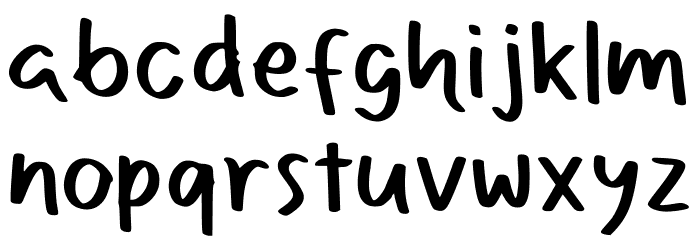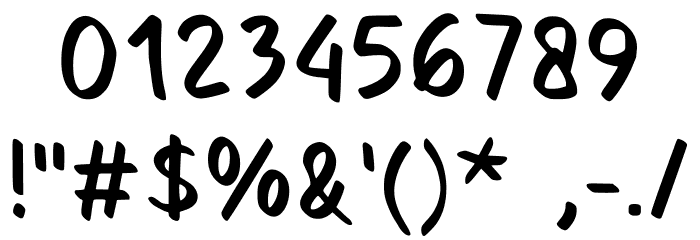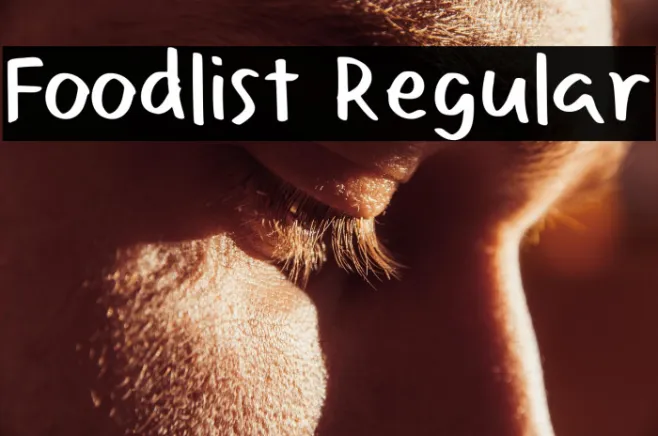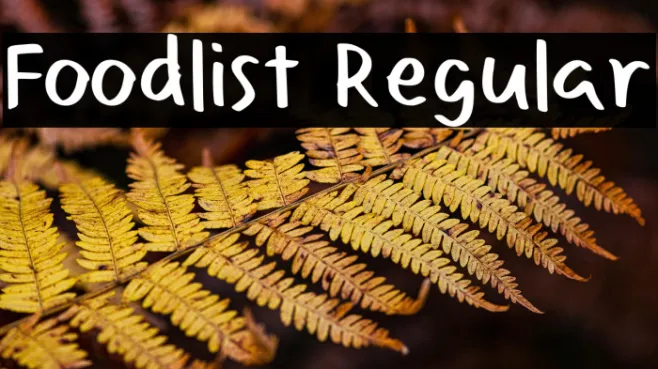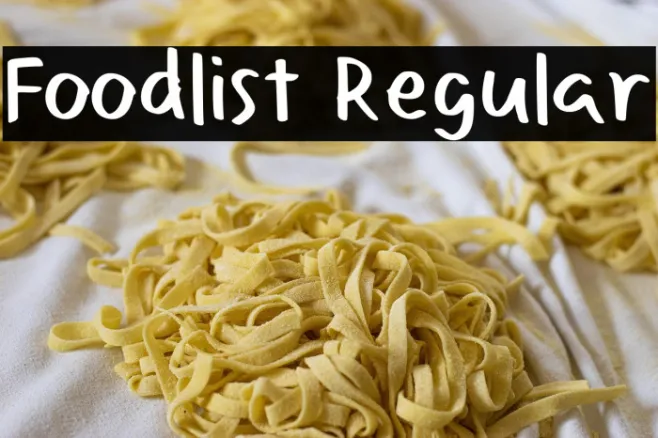
Foodlist Regular Font
This font features a playful and casual handwritten style, characterized by its smooth curves and slightly irregular letterforms. The uppercase and lowercase letters maintain a consistent flow, giving it a friendly and approachable appearance. The numbers and special characters are designed to match the overall aesthetic, ensuring a cohesive look across all text. The font's informal nature makes it ideal for projects that require a personal touch, such as invitations, greeting cards, or branding for creative businesses. Its legibility and charm make it suitable for both digital and print media.
A playful, handwritten font with smooth curves and a casual style.
- Proposed Projects: Ideal for invitations, greeting cards, creative branding, and personal projects.
- Overall Style: Casual
- Use Case: Headlines, Logos, Invitations